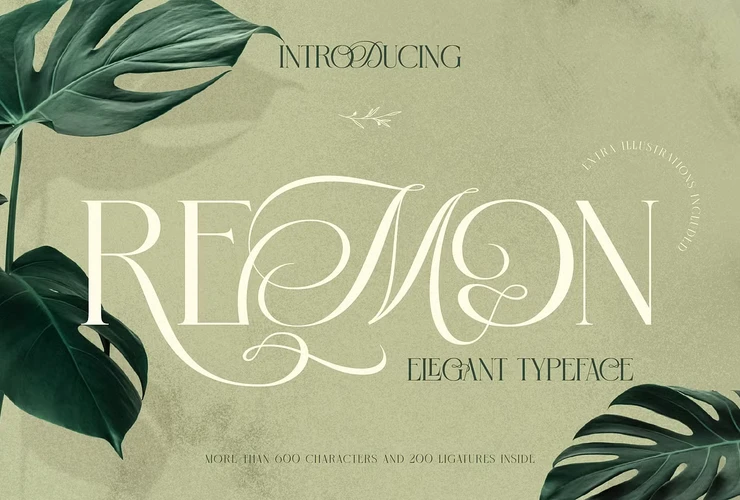
Remon: A Perfect Blend of Classic Serif and Elegant Script
Remon is a stunning font that effortlessly combines the timeless appeal of classic serif with the graceful curves of elegant script style letters. This unique blend makes Remon an ideal choice for high-end branding projects, editorial designs, and luxurious invitations. Whether you’re designing a book cover, crafting a sophisticated logo for a fashion or jewelry brand, or penning a heartfelt message, Remon ensures that your text stands out with an exquisite blend of readability and elegance.
Why Choose Remon?
Remon offers a meticulously crafted typeface where every character is designed to balance clarity with a sense of classic refinement. The result is a font that not only enhances the aesthetic appeal of your text but also communicates a sense of timelessness and luxury.
Key Features of Remon:
Versatile Use: Perfect for branding, invitations, editorial designs, fashion and jewelry brands, and more, Remon’s versatility makes it a go-to font for any project requiring a touch of elegance.
Elegantly Crafted Characters: Each letter is carefully designed to offer both readability and a unique style, ensuring that your text stands out in any context.
Bonus Illustrations: Included with the font are simple illustrations that further enhance your design’s elegance, making your work appear more aesthetic, luxurious, modern, and timeless.
Multilingual Support: Remon includes a full A-Z set, numbers, punctuation, alternates, ligatures, and multilingual support, making it a comprehensive choice for a wide range of projects.
Ideal for Luxurious and Elegant Designs
Remon is perfect for anyone looking to create designs that exude luxury and sophistication. Its elegant blend of serif and script styles makes it a versatile choice for high-end branding, editorial work, and more. Whether you’re crafting a luxurious invitation or an elegant logotype, Remon will help your designs convey a sense of timeless beauty and grace.